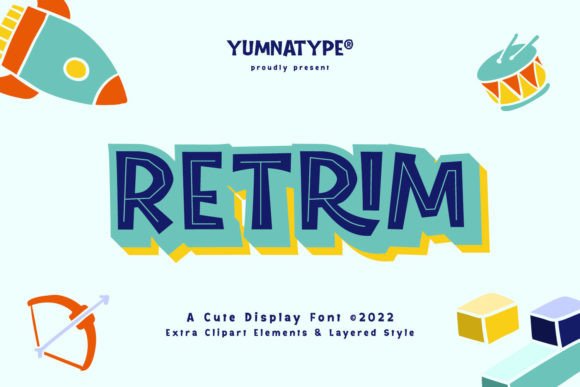
Looking for the perfect font to make your German text stand out? Look no further than Retrim Font, created by the talented Yumna_Type. With its eye-catching and captivating design, this display font is sure to make you the center of attention.
Retrim Font is not your ordinary font. It goes beyond just being easy to read with its all-capped characters. This font takes sophistication to a whole new level with its cute and stylish looks. Each letter has distinctive styles or layers that create stunning optical effects, making your text pop off the page.
But what sets Retrim Font apart from other fonts? It's the PUA encoding feature. This means you have access to a wide range of amazing glyphs and ligatures that will enhance your design even further. You can effortlessly add unique and creative elements to your text, making it truly one-of-a-kind.
Imagine the impact you can create with Retrim Font. Whether you're designing a logo, creating a poster, or crafting a website, this font will elevate your project to new heights. Its versatility allows it to be used in various contexts, ensuring that your German text will always make a statement.
But it's not just about the aesthetics. Retrim Font understands the power of emotions. It evokes a sense of charm, elegance, and playfulness that will resonate with your audience. Your message will not only be visually appealing but also emotionally captivating, leaving a lasting impression on anyone who sees it.